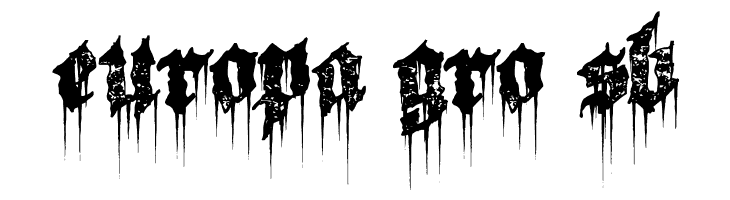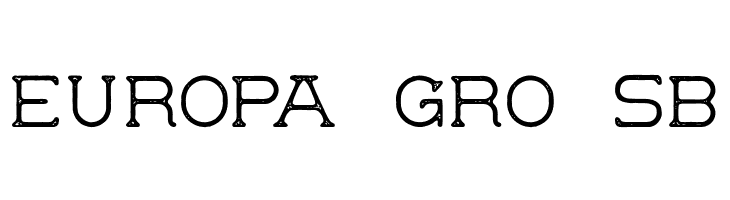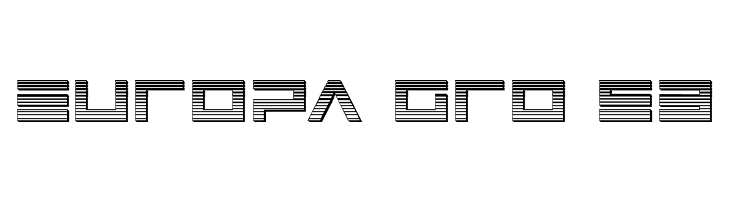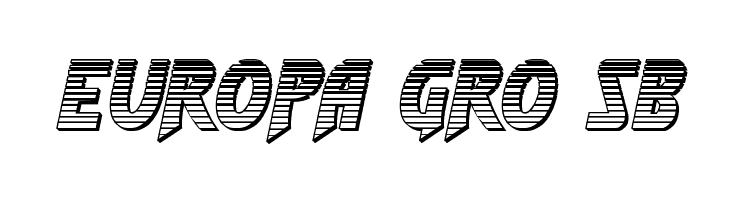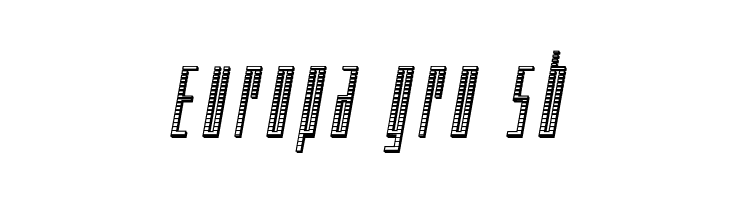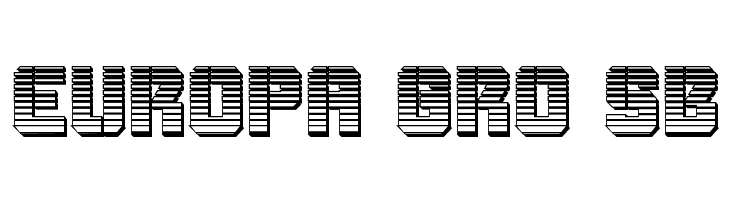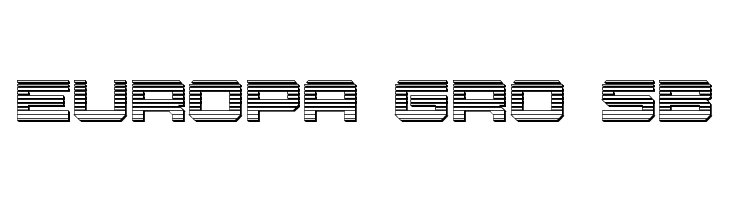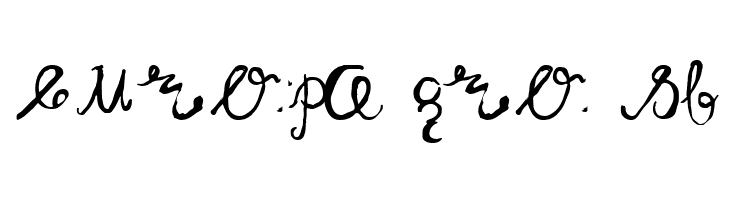
• Burn The Witch
A bold, gothic font with dripping, textured elements and a blackletter style.
• The Wild Hammers Demo
( Burntilldead Typefoundry - Eric Kurniawan - www.burntilldead.com/ )
A rugged, vintage-style font with industrial and handcrafted elements.
• Avenger Chrome
A futuristic, geometric font with bold, multi-line strokes and a chrome-like appearance.
• Flash Rogers Chrome
A bold, futuristic font with a 3D striped effect and sharp, angular design.
• Legion Chrome
A futuristic, industrial font with geometric shapes and intricate line patterns.
• Phantacon Chrome Italic
A bold, futuristic font with a chrome-like, italicized design.
• Thunder Trooper Chrome
A bold, futuristic font with a 3D chrome-like appearance.
• U.S.S. Dallas Chrome
A bold, futuristic font with a 3D effect created by layered lines.
• Rustswordsblack
( René Wagner )
A rugged, distressed font with a hand-drawn, weathered look.
• GreatBerserker
( 23SE - formerly at home4.swipnet.se/~w-44190/fonts/ )
A whimsical, cursive font with artistic loops and swirls.